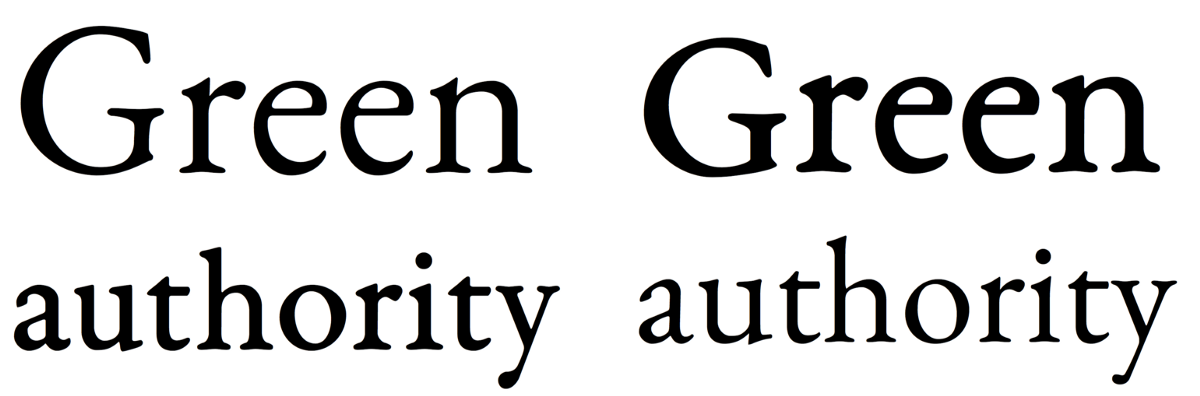
Designer vs Developer #13: Variable fonts and the digital revolution
Google’s Designer vs Developer aims at improving understanding between designers and developers. In this video and essay Design Advocate Mustafa Kurtuldu discusses how digital tools have changed type design
The tools we use sometimes inspire the things we make. Their inherent limitations become the epitome of a style that later generations look back on in awe. For example, Andy Warhol’s use of silkscreen printing defined the pop art style of the 1950’s and 1960’s. The silkscreen’s; ability to reproduce the same images precisely at a high quality allowed Warhol to create works that were almost impossible. He chastised for the use of repetition by traditional artists who shrieked at the perceived laziness of it all.